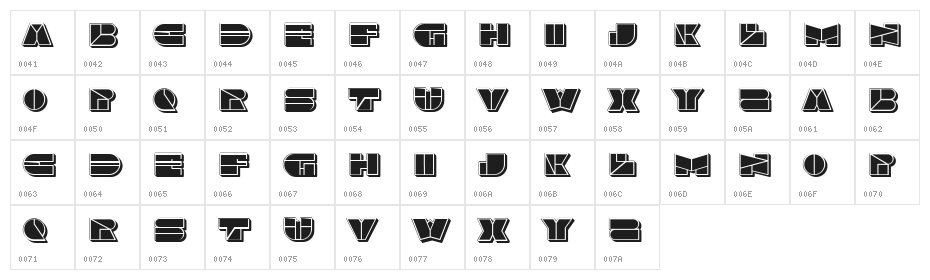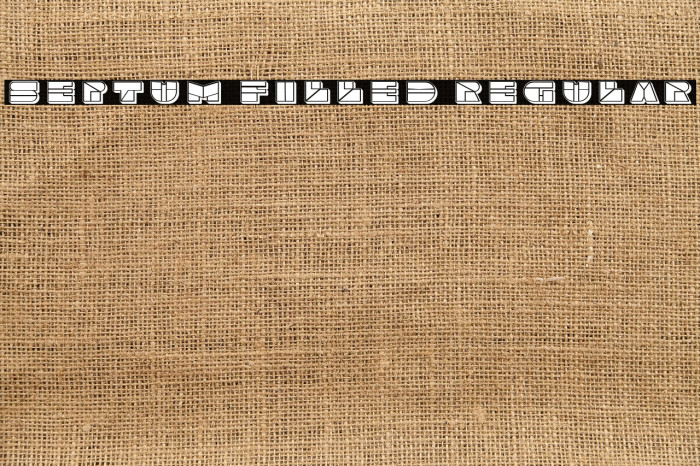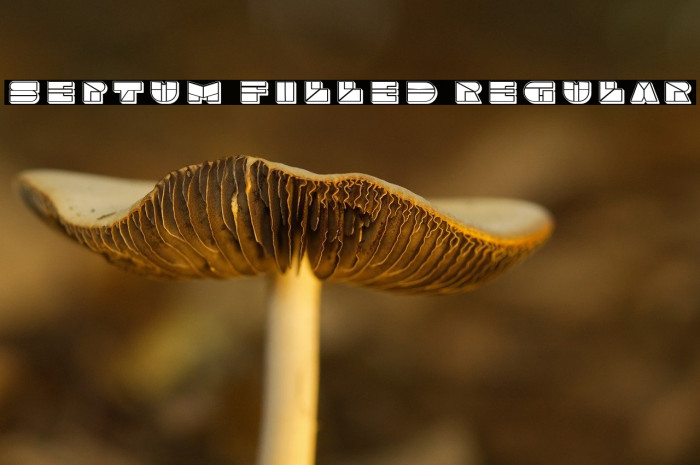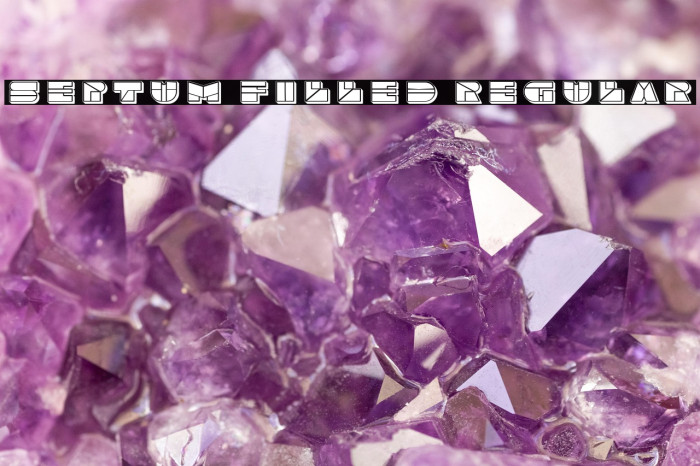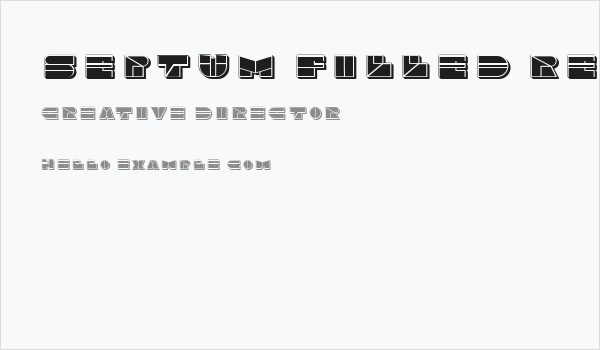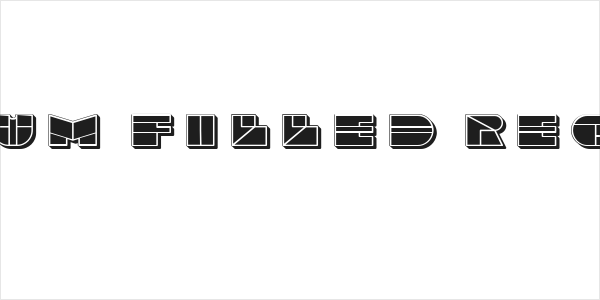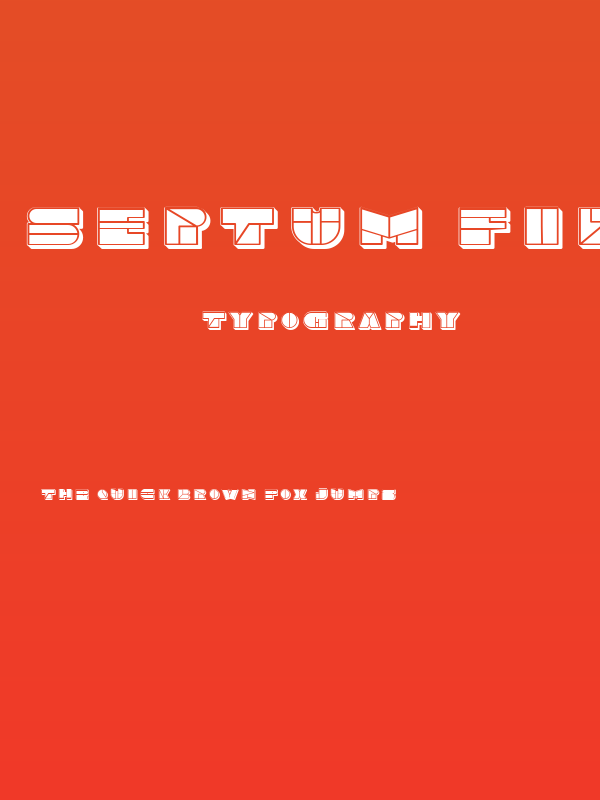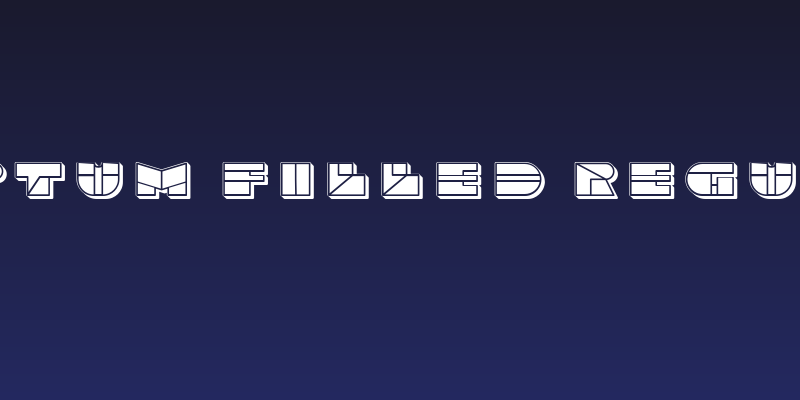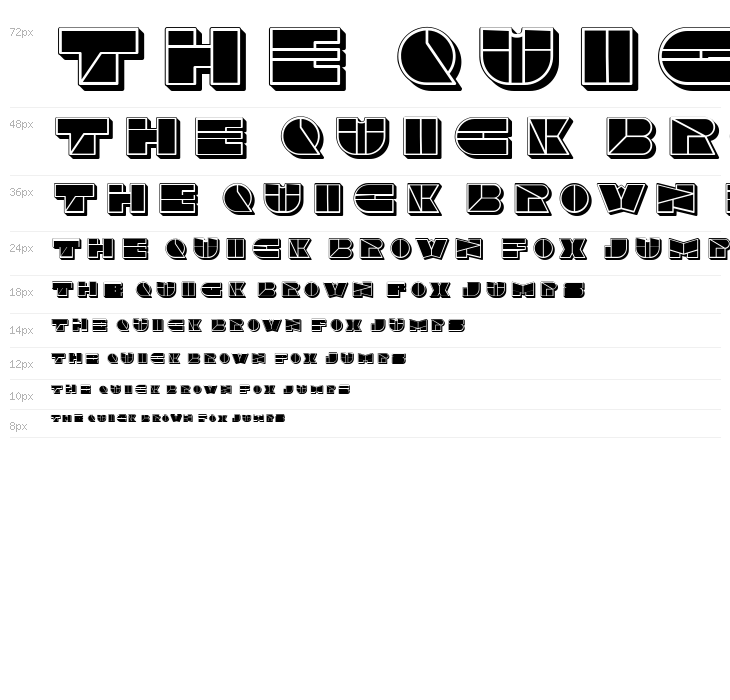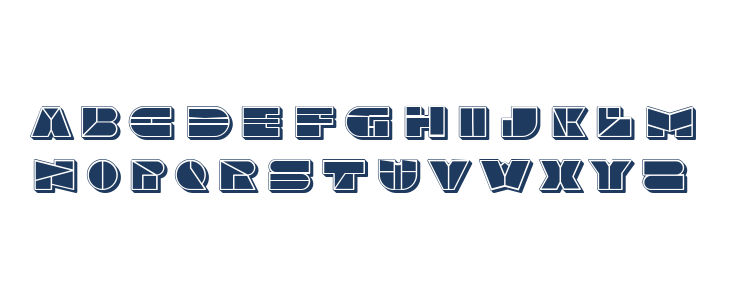
Septum Filled Regular Font
Septum Filled Regular Description
This font features a bold and geometric design with a distinct filled style. Each character is constructed with thick lines and a unique pattern that includes horizontal and vertical divisions, creating a segmented appearance. The font has a strong visual impact, making it ideal for attention-grabbing designs. The uppercase letters are particularly striking, with consistent line thickness and a modern, industrial feel. The overall look is both futuristic and retro, combining elements of classic typography with a contemporary twist.
| Proposed Projects | Ideal for posters, logos, and branding projects that require a strong visual presence. |